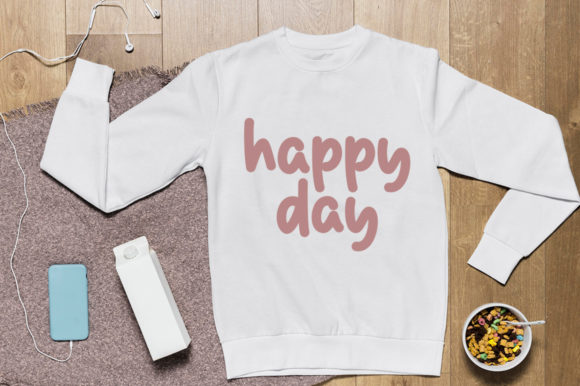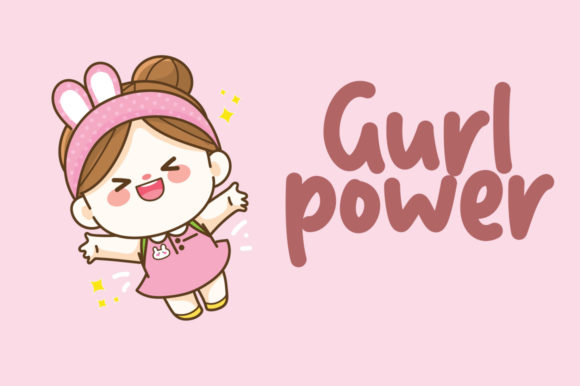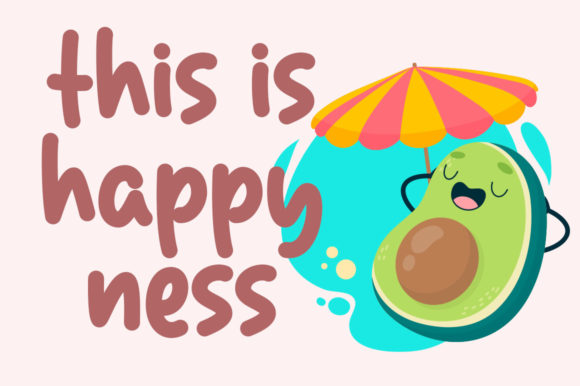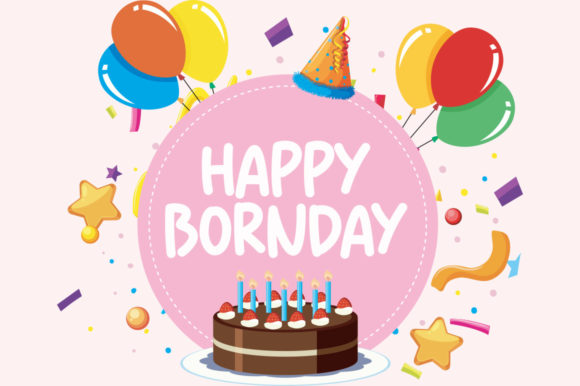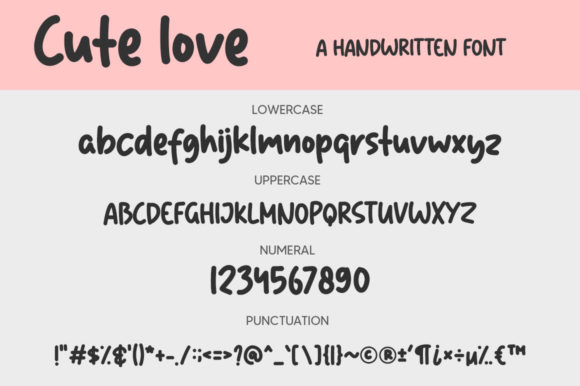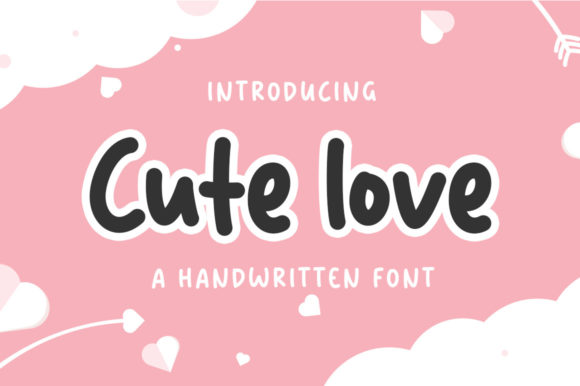
Cute Love Font: The Perfect Addition to Your Design Arsenal
Are you a designer or crafter looking for a font that can add a personal touch to your creations? Look no further than Cute Love Font, a lovely and simple-lettered handwritten font that’s perfect for a variety of projects. In this article, we’ll dive into the features and benefits of Cute Love Font, and explore how it can elevate your designs to the next level.
What is Cute Love Font?
Cute Love Font is a beautiful, handwritten font that’s designed to mimic the look of chalkboard writing. Its authentic, cursive script is perfect for creating a personal and realistic feel in your designs. Whether you’re creating chalkboard quotes, teaching materials, or social media graphics, Cute Love Font is the perfect choice.
Key Features of Cute Love Font
- Handwritten script: Cute Love Font features a beautiful, handwritten script that’s perfect for creating a personal touch in your designs.
- Simple and elegant: The font’s simple and elegant design makes it perfect for a variety of projects, from chalkboard quotes to teaching materials.
- Authentic look: Cute Love Font’s authentic look will add a realistic feel to your designs, making them stand out from the crowd.
- Easy to read: The font is easy to read, making it perfect for creating teaching materials, social media graphics, and other designs where readability is key.
Benefits of Using Cute Love Font
So why should you choose Cute Love Font for your designs? Here are just a few benefits of using this lovely font:
- Personal touch: Cute Love Font adds a personal touch to your designs, making them feel more approachable and relatable.
- Versatility: The font is versatile and can be used in a variety of projects, from chalkboard quotes to teaching materials and social media graphics.
- Unique look: The font’s unique look will set your designs apart from the crowd and make them stand out.
Project Ideas Using Cute Love Font
So what can you create with Cute Love Font? Here are a few project ideas to get you started:
- Chalkboard quotes: Create beautiful chalkboard quotes using Cute Love Font.
- Teaching materials: Use Cute Love Font to create teaching materials, such as worksheets and handouts.
- Social media graphics: Create social media graphics using Cute Love Font to add a personal touch.
- Party decorations: Use Cute Love Font to create party decorations, such as banners and signs.
Cute Love Font is a beautiful and versatile font that’s perfect for designers and crafters. Its handwritten script and authentic look make it perfect for creating a personal touch in your designs. With its ease of use and unique look, Cute Love Font is a great addition to any design arsenal. So why not give it a try and see how it can elevate your designs to the next level?